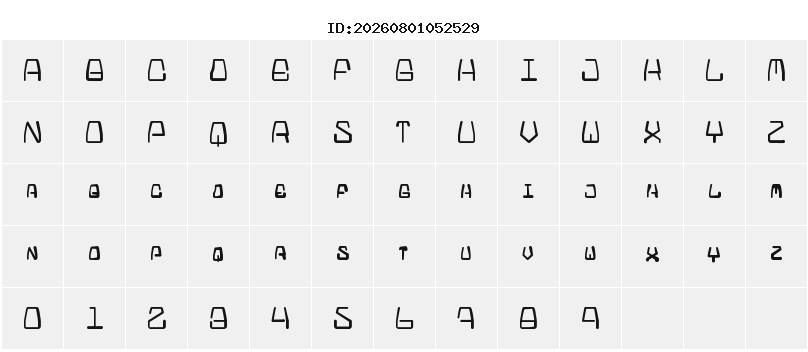
La Chim de 23:50 Preview
About La Chim de 23:50.ttf
La Chim de 23:50.ttf is a modern, elegant sans-serif font designed for ultimate readability and visual harmony. Perfect for branding, headlines, web design, and print materials.